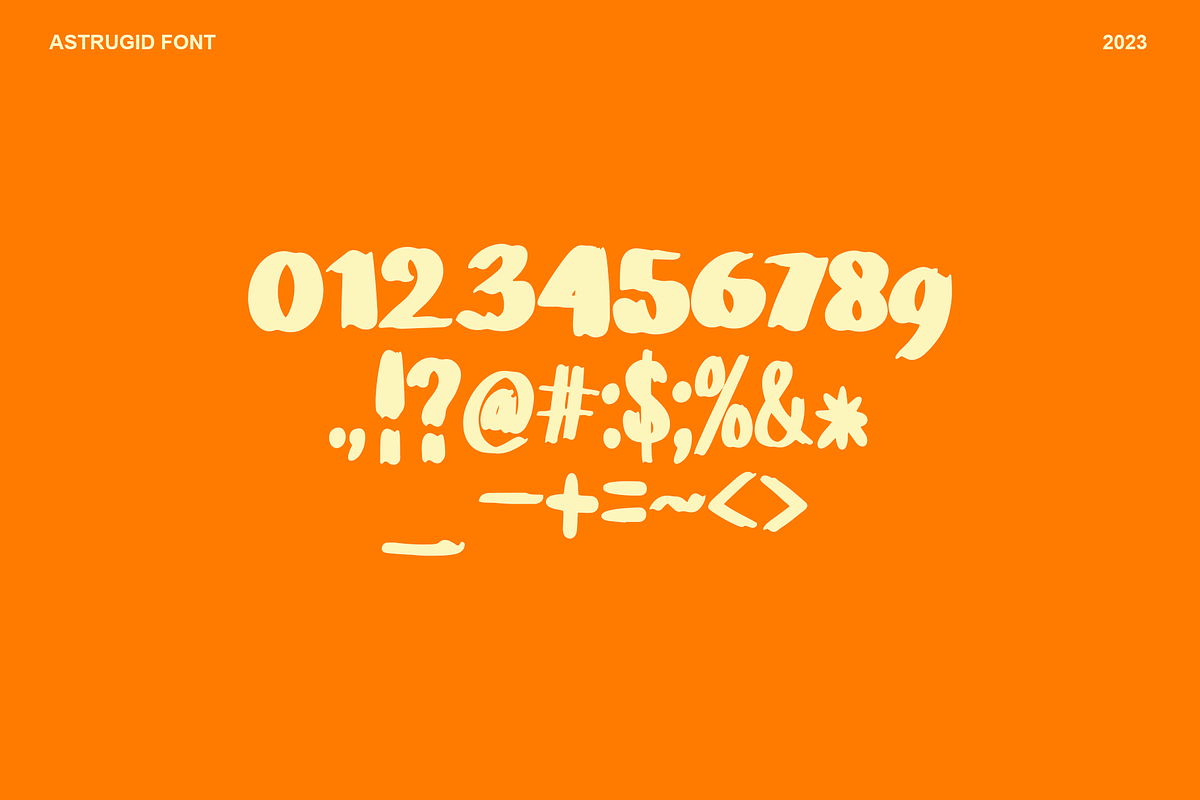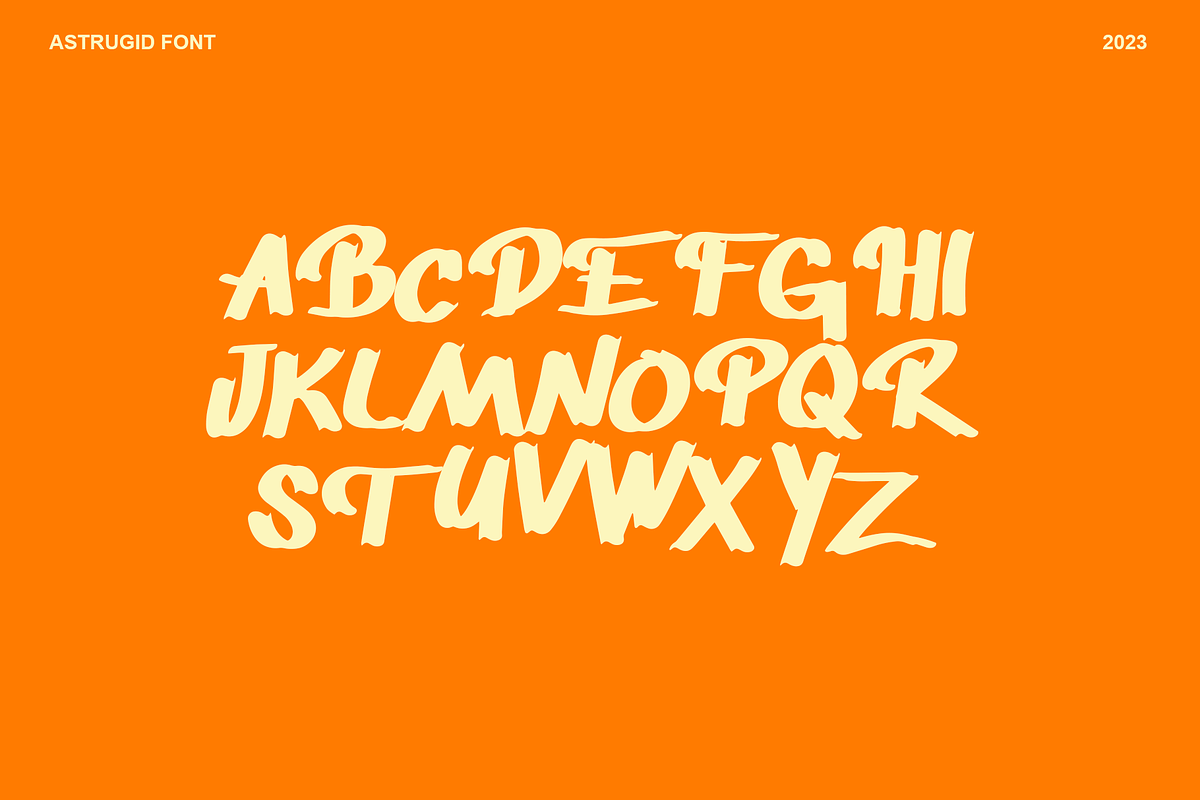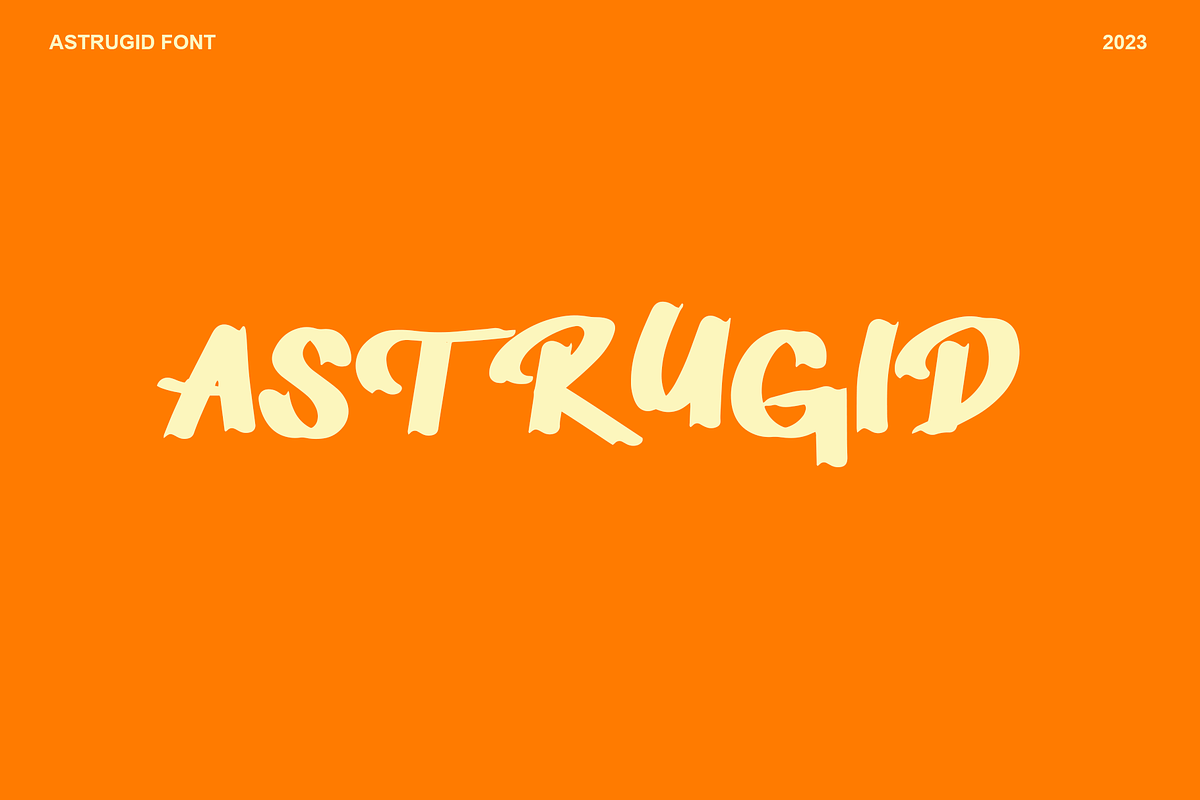
Astrugid Handwriting Font
Astrugid is a handwrinting type font with a retro character and little fluid in corner. Use this display font to add a special retro and vintage touch to any design idea you can think of!
Great for use to :
- Logo,
- Sticker,
- Packaging design,
- Cricut Project,
- headlines,
- brand identity,
- t-shirt
- apparel industry,
- posters,
- magazines,
- books,
- YouTube,
- Instagram,
- websites or
- your creative design projects.